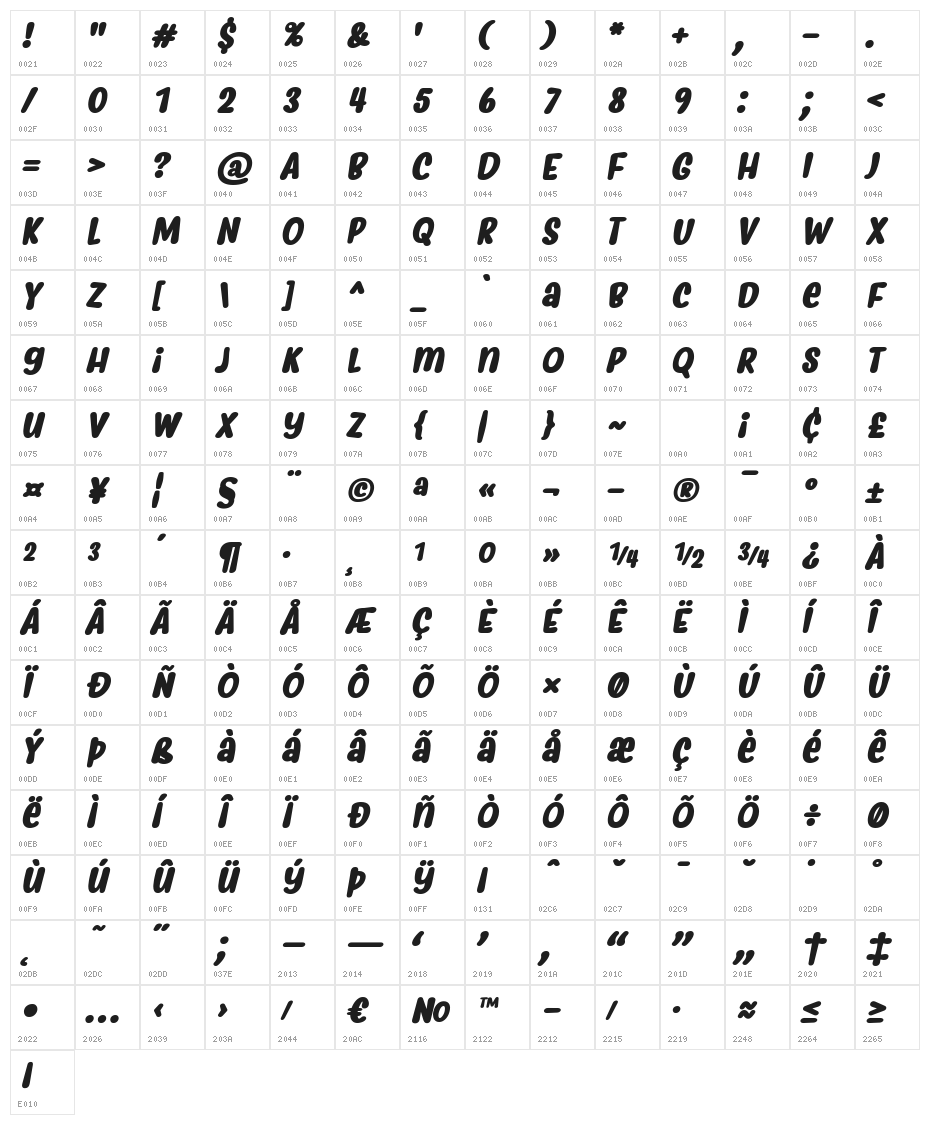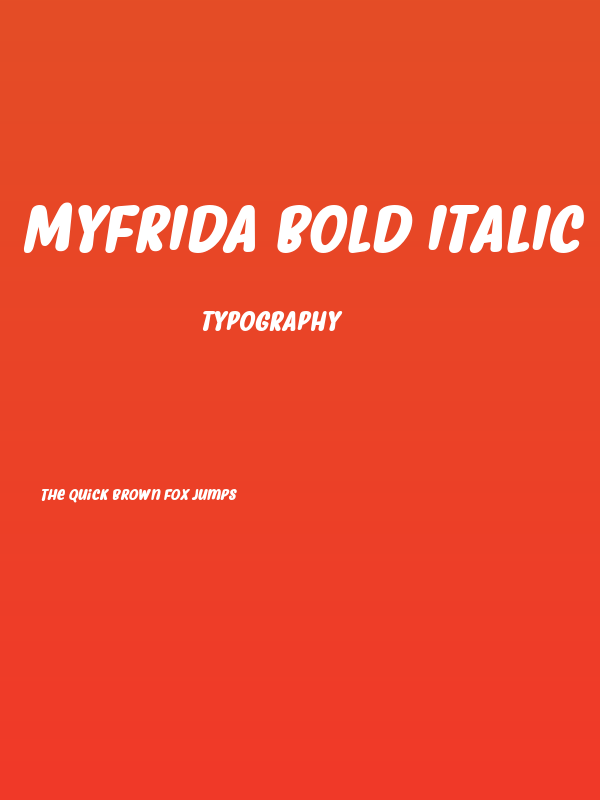
Myfrida Bold Italic Font
Myfrida Bold Italic Description
This font features a bold and italic style with a playful and energetic appearance. The characters are rounded and slightly slanted, giving a sense of movement and dynamism. The strokes are thick and consistent, providing a strong presence on the page. The font maintains a uniform weight across all characters, ensuring readability while adding a touch of flair. Its design is modern and lively, making it suitable for projects that require a bold statement. The character spacing is normal, allowing for clear legibility without feeling cramped.
Proposed ProjectsIdeal for branding, advertising, posters, and any project needing a bold, lively touch.